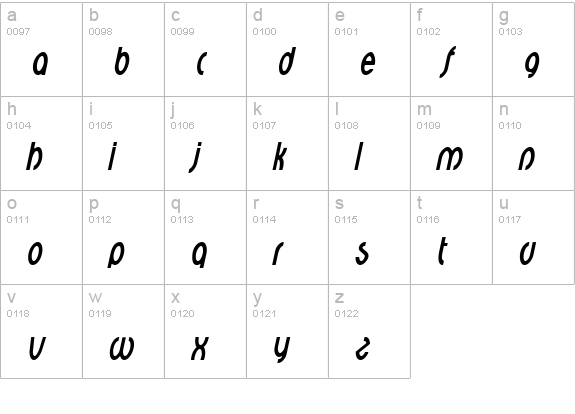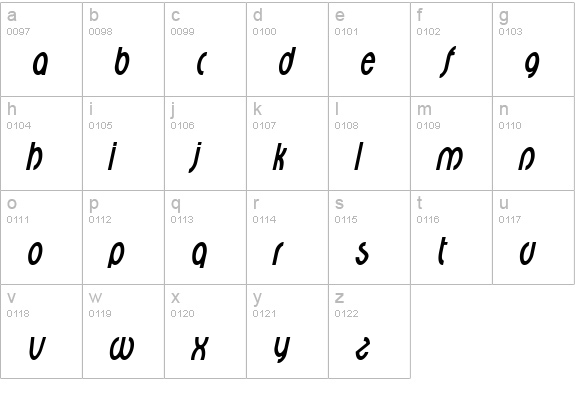
Croix Italic Font Details
Croix Italic is a distinctive, italic variant in the Croix typeface family \xE2\x80\x94 well suited to design and typography projects.
Croix Italic font is a sleek and elegant typeface that exudes sophistication and charm. Its modern design features slanted letterforms with subtle curves, making it perfect for adding a touch of style to any project. The italicized structure of Croix brings a sense of movement and dynamism to your text, making it stand out with a unique flair. What sets Croix Italic font apart is not only its aesthetic appeal but also its versatility. Whether used for headings, body text, or creative design projects, this font effortlessly conveys a sense of elegance and professionalism. Its clean lines and smooth curves ensure readability while adding a touch of sophistication to any design. The best part about Croix Italic font is that it is available for free download at FontsMarket.com. This means you can easily access this stunning typeface and incorporate it into your projects without any hassle. Don't miss out on the opportunity to enhance your designs with the timeless charm of Croix Italic font - download it today and elevate your typography game!